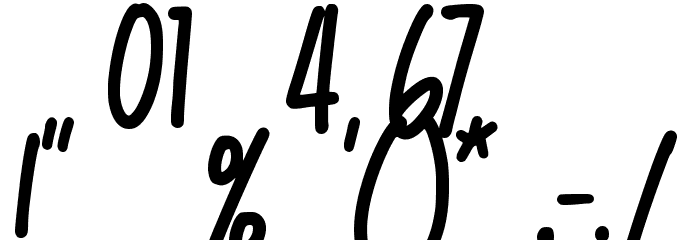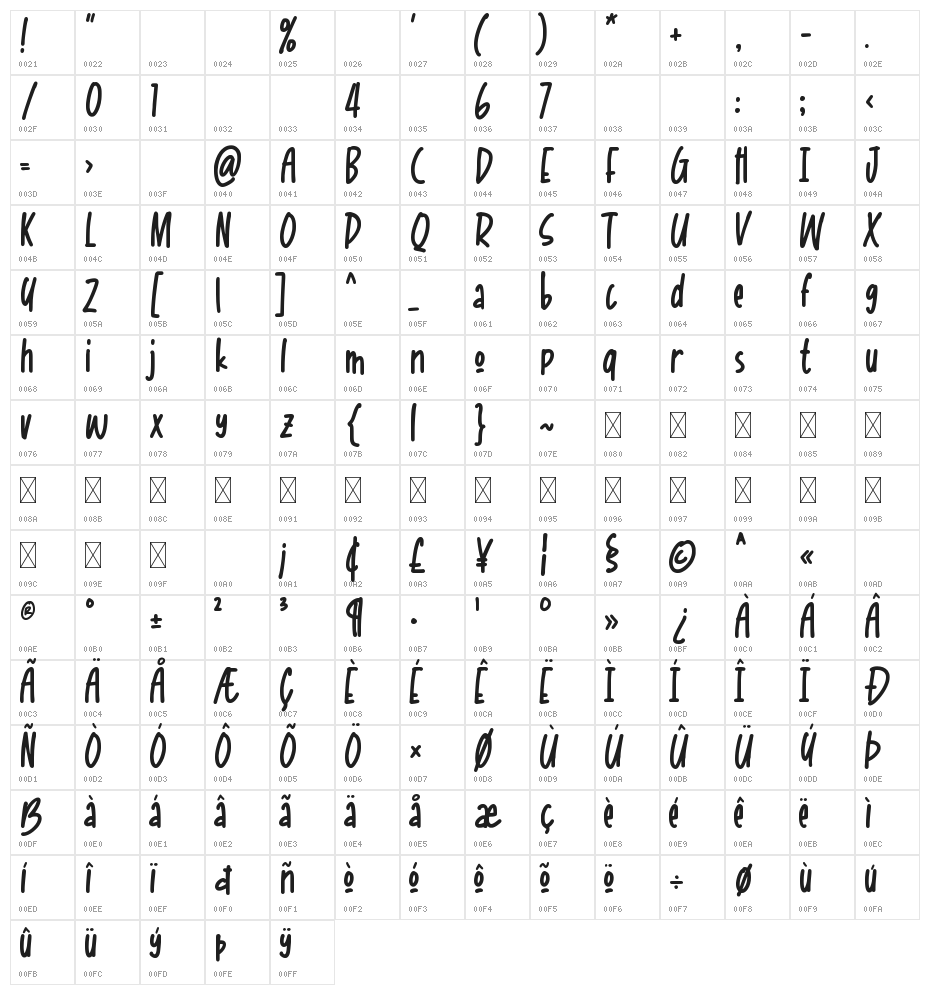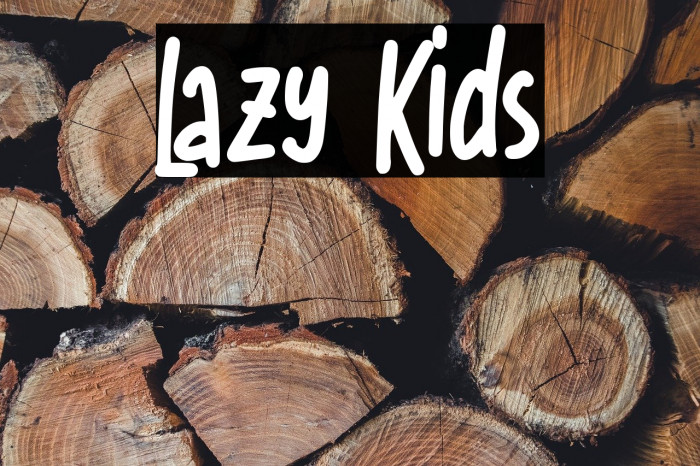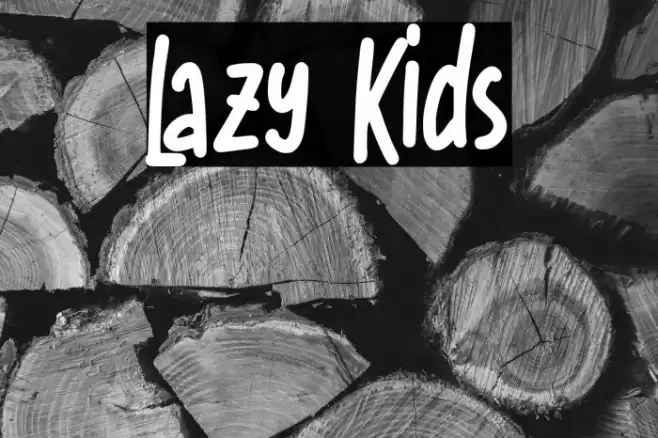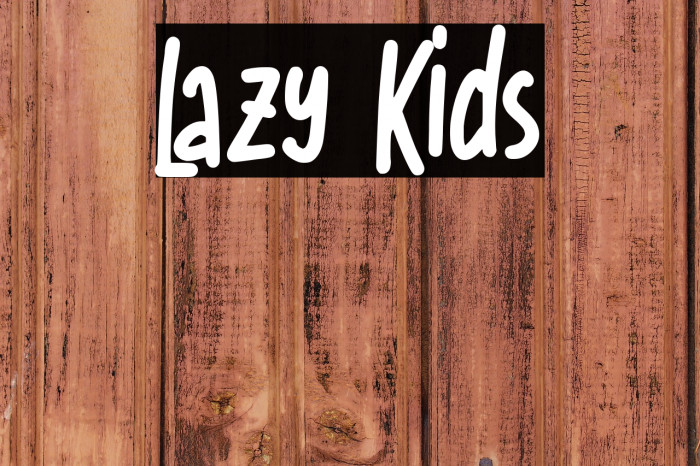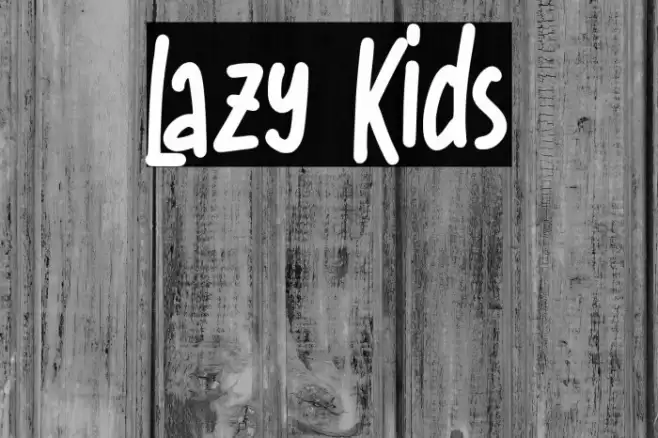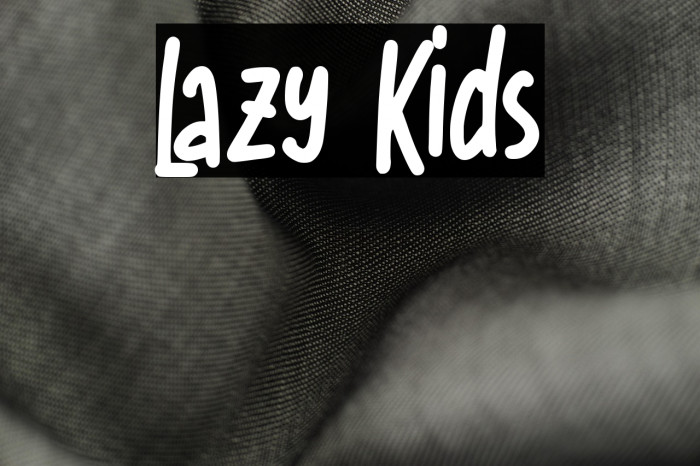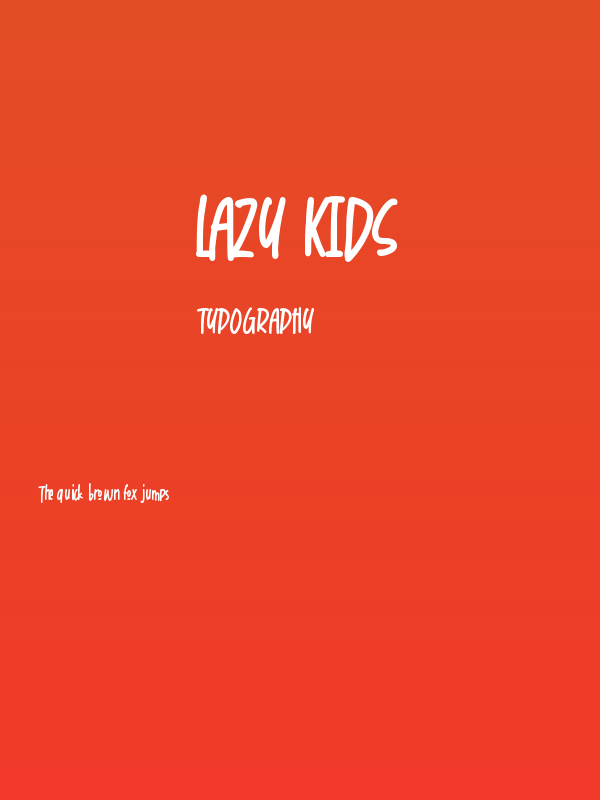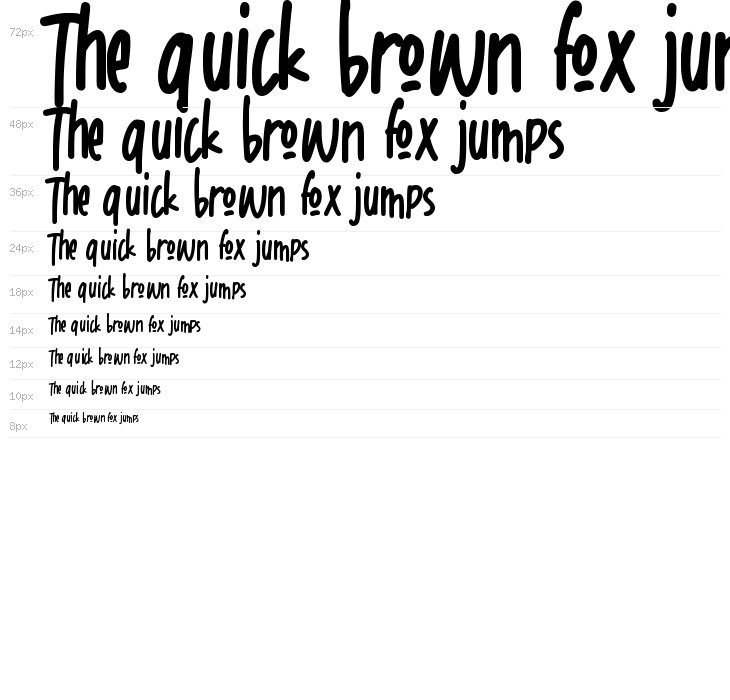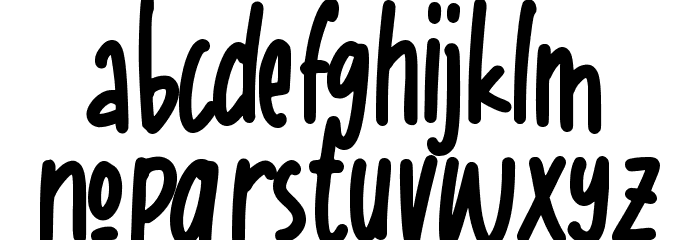
Lazy Kids Font
Lazy Kids Description
This playful and energetic font features a handwritten style with a casual and informal appearance. The letters are bold and slightly irregular, giving them a lively and spontaneous feel. The uppercase and lowercase characters maintain a consistent style, with rounded edges and a slight slant that adds to the dynamic look. The numbers and special characters follow the same playful design, making this font suitable for creative and fun projects. Its unique style is perfect for capturing attention and conveying a sense of joy and creativity.
| Overall Style | Playful |
| Proposed Projects | Ideal for children's books, playful branding, casual invitations, and creative posters. |